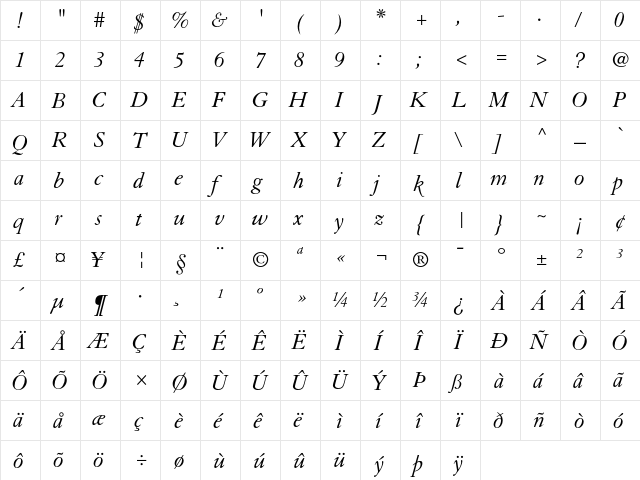
Granjon Italic Font Preview
Granjon Italic
Design Context for Granjon Typeface
Granjon is a composed and adaptable typeface that performs quietly and consistently across a wide range of design contexts. Its italic angle brings a sense of urgency and motion to the letterforms.
Pro Tip: Try Granjon for annotation and caption copy alongside an upright companion — the contrast in angle creates a dynamic but ordered typographic system.